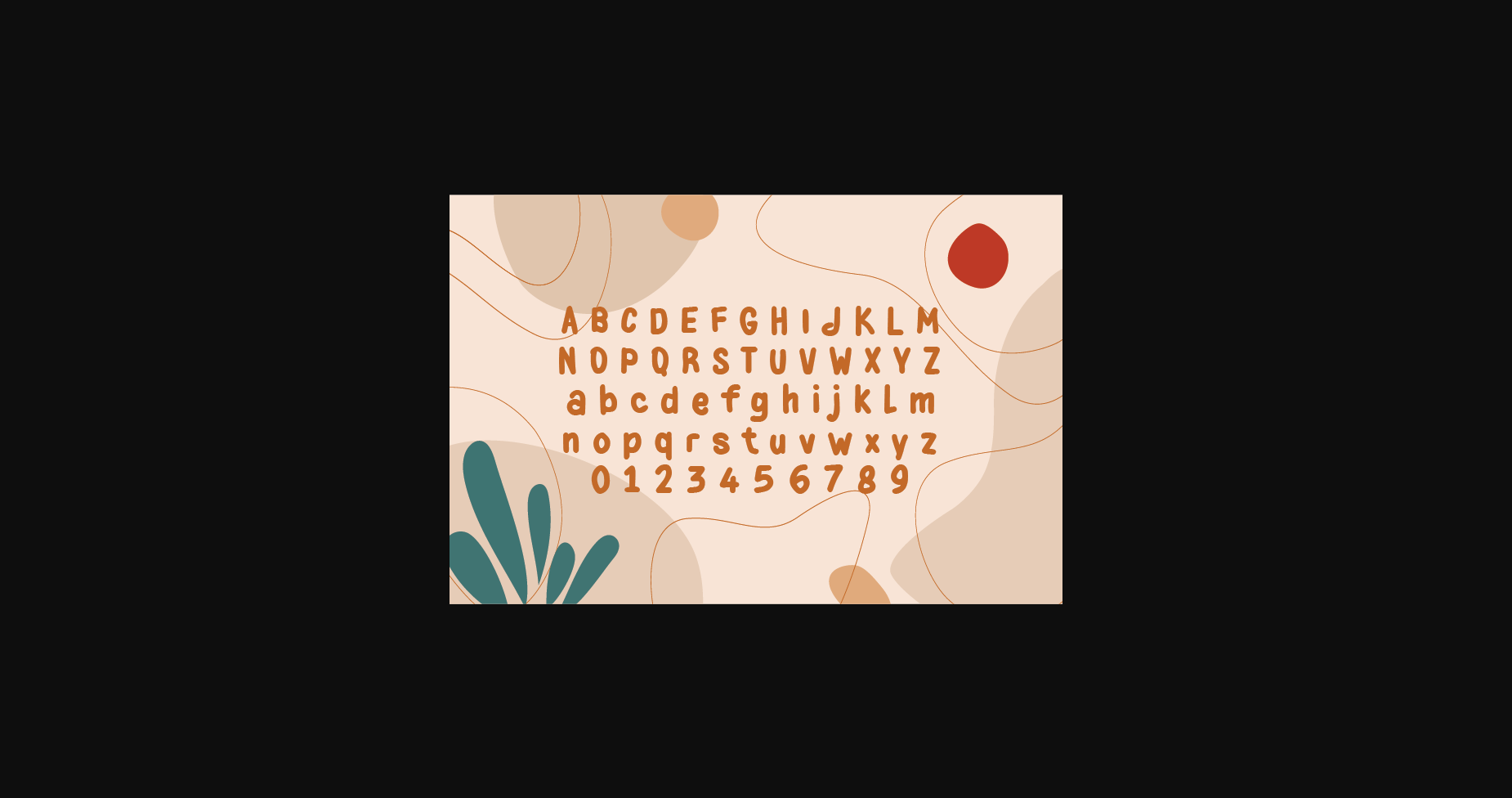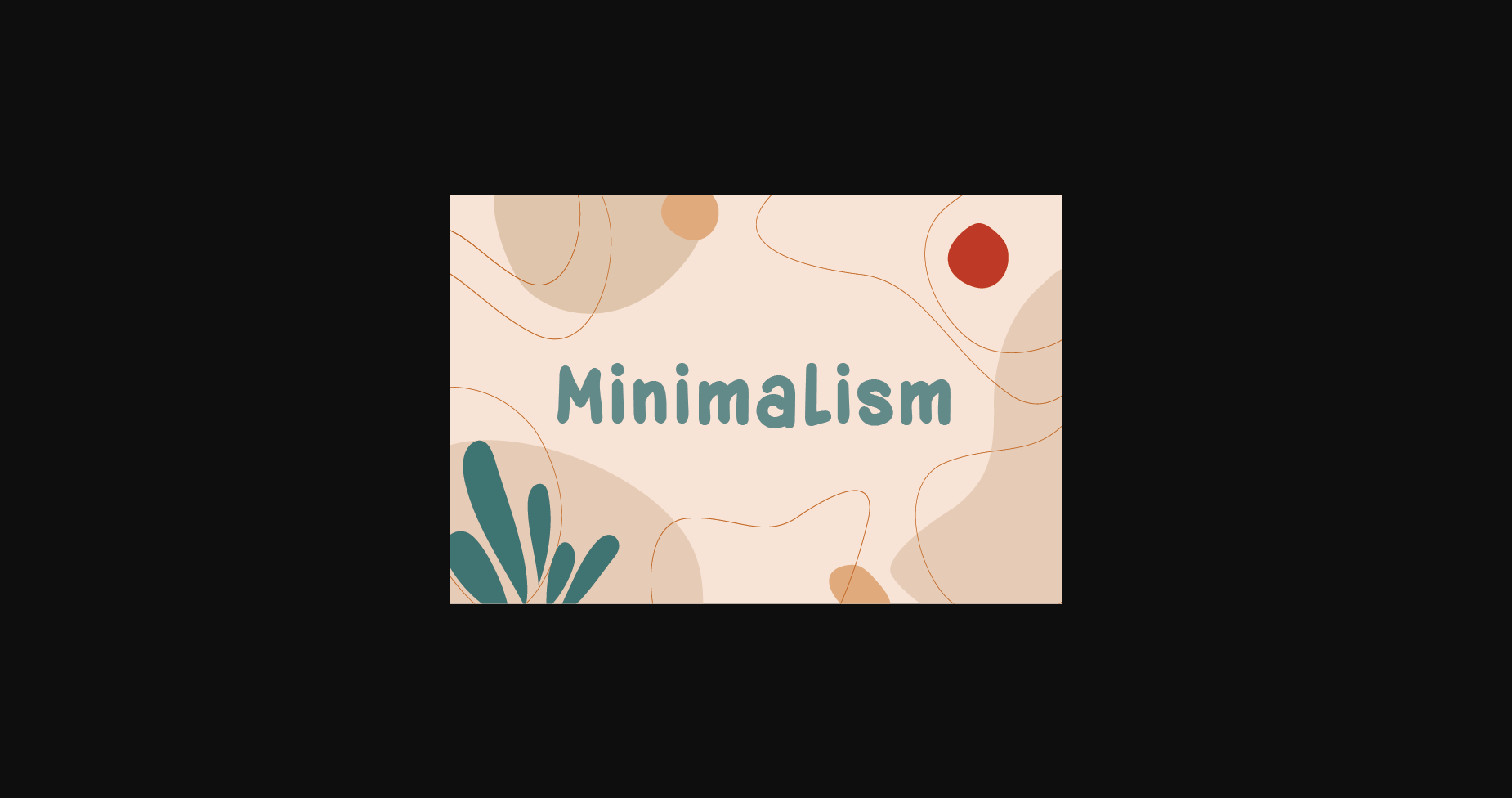
About Minimalism Font
Minimalism is a natural handwritten font without changing a single node in each character’s indentation, this makes this font very interesting and unique. Perfect for quotes, notes, tees, and any product design.